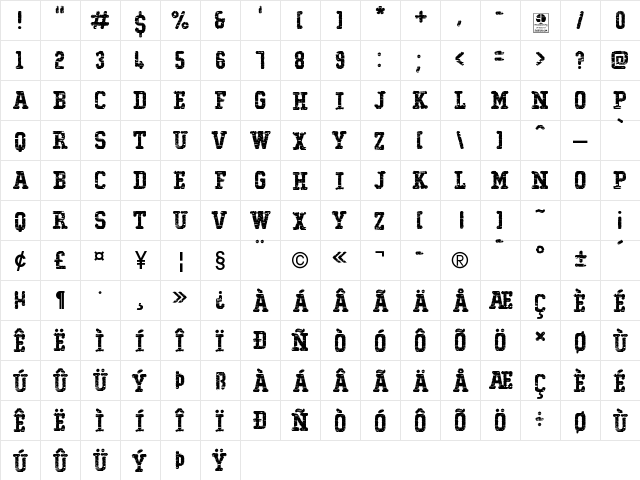
Typo College Destroyed Demo Regular
Design Context for Typo College Destroyed Demo Typeface
Typo College Destroyed Demo brings high-energy athletic personality to the page — its confident, muscular forms are built for impact.
A natural choice for gym brands, fantasy sports, jersey lettering, and action-driven headlines.
Font Pairing: Use alongside a condensed or geometric sans for supporting copy — keep the pairing bold, functional, and free of ornament.
Pro Tip: Use Typo College Destroyed Demo in all-caps headlines where its athletic energy can fully express itself. Pair with a solid, simple sans for supporting text.